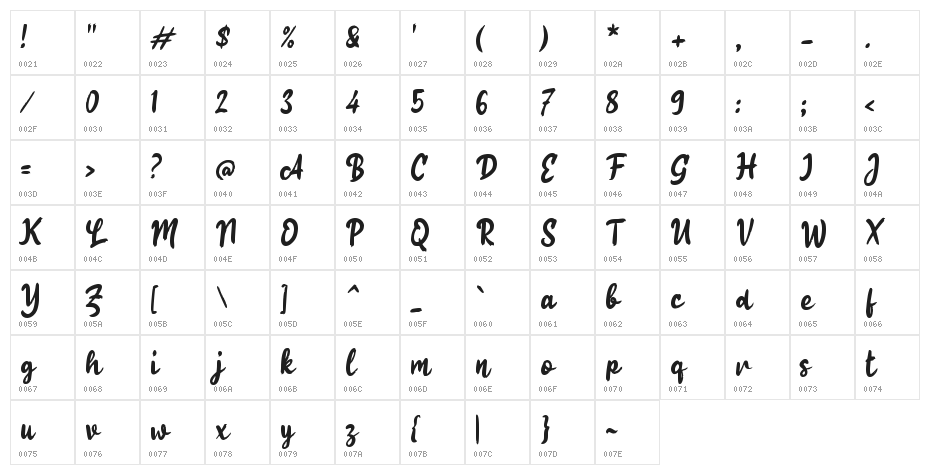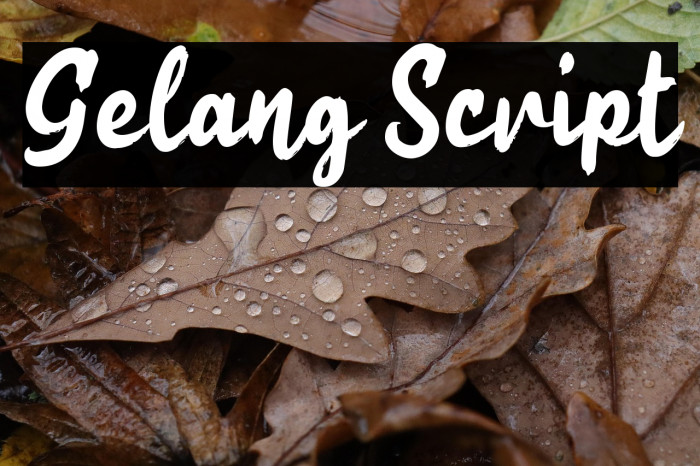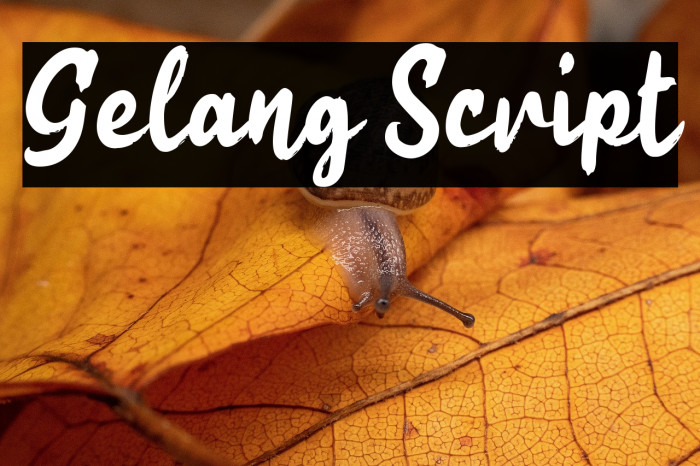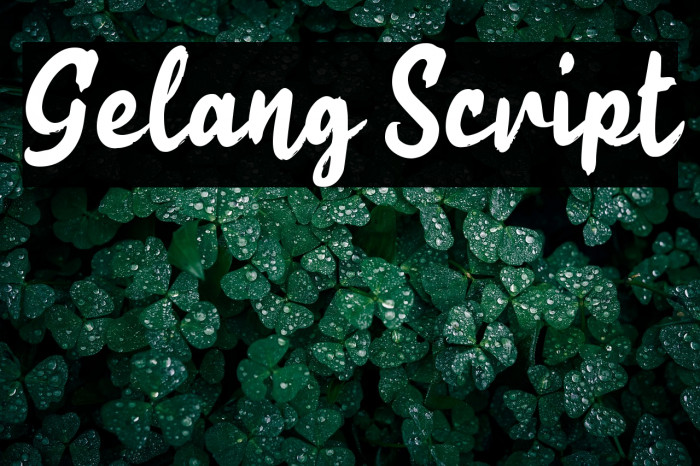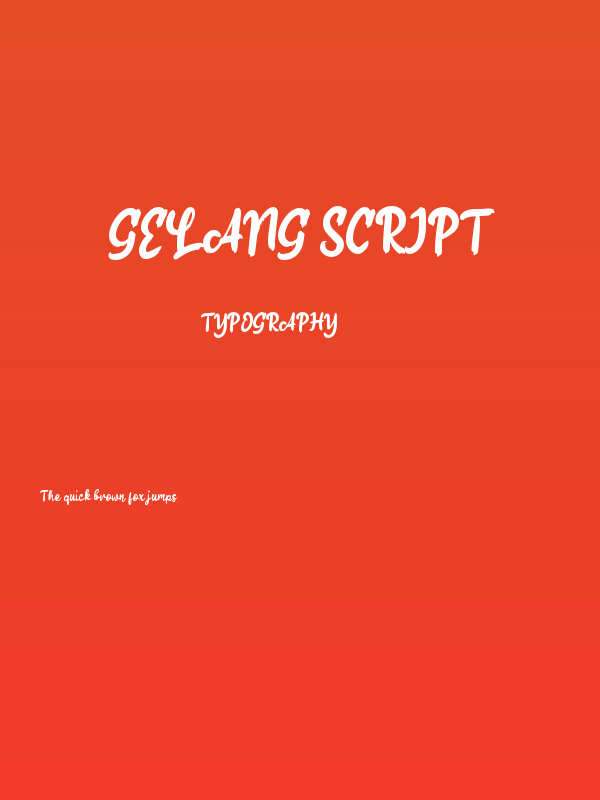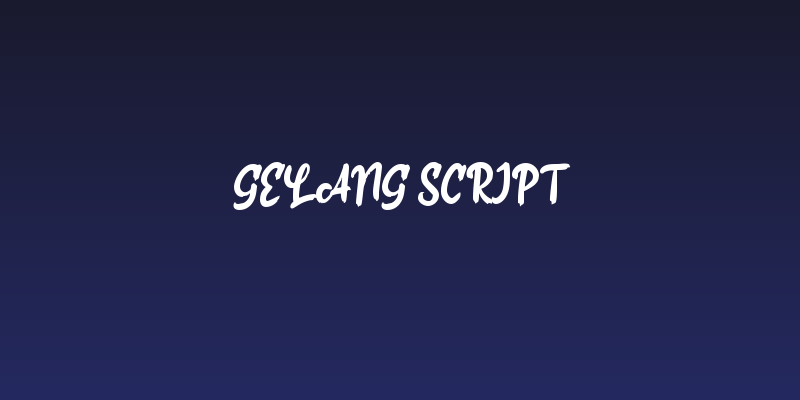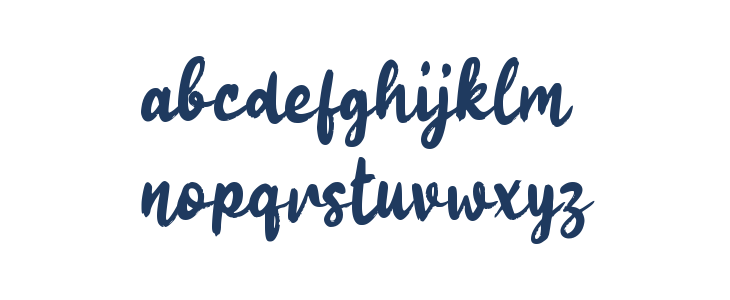
Gelang Script Font
Gelang Script Description
This font features a bold and expressive script style, characterized by its fluid and dynamic strokes. The letters are connected in a cursive manner, giving it a handwritten appearance. The uppercase letters are slightly larger and more pronounced, while the lowercase letters maintain a consistent flow. The numerals and special characters are crafted to match the overall aesthetic, ensuring a cohesive look. This font exudes a sense of elegance and creativity, making it suitable for projects that require a personal touch.
| Use Case | Logos, Headlines, Invitations |
| Proposed Projects | Ideal for invitations, greeting cards, branding, and creative projects that require a personal, elegant touch. |